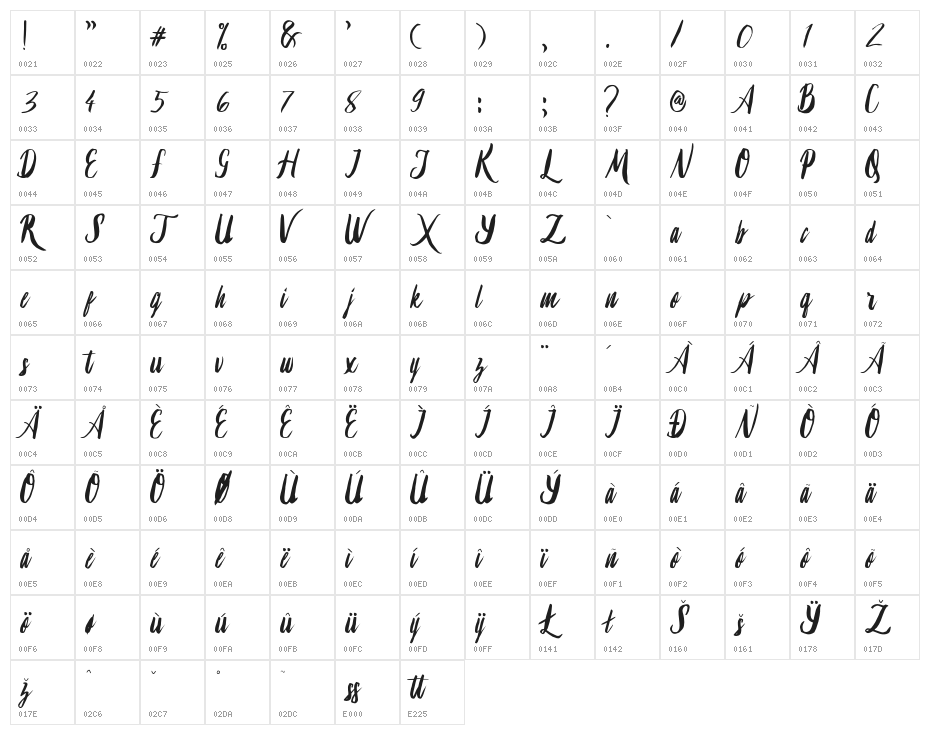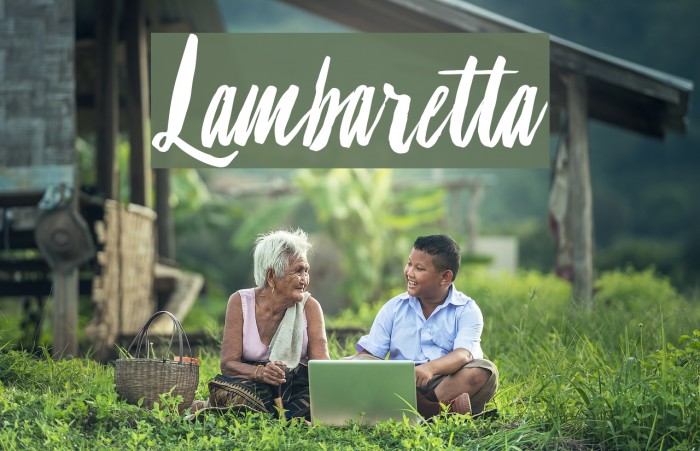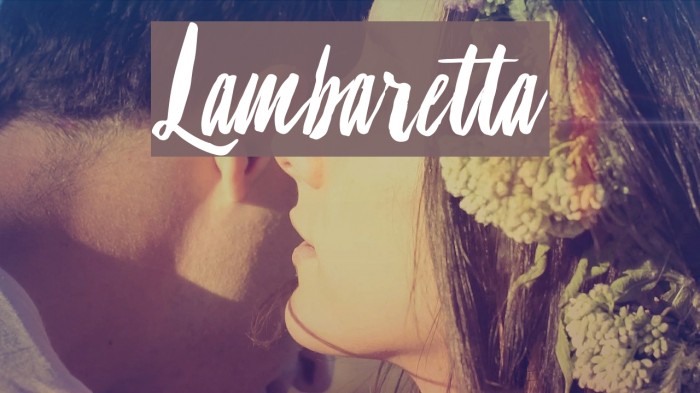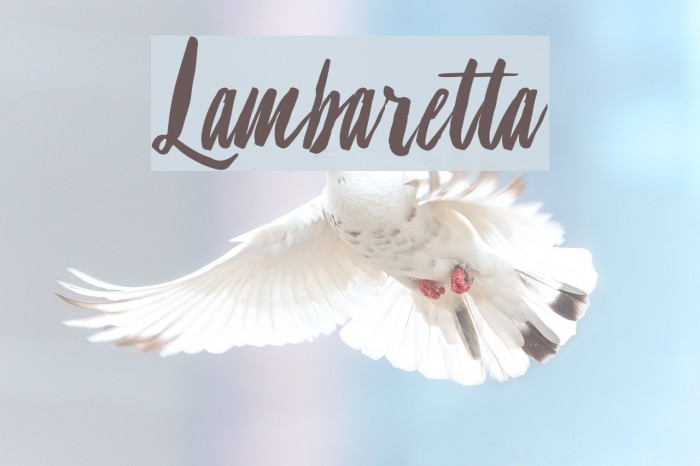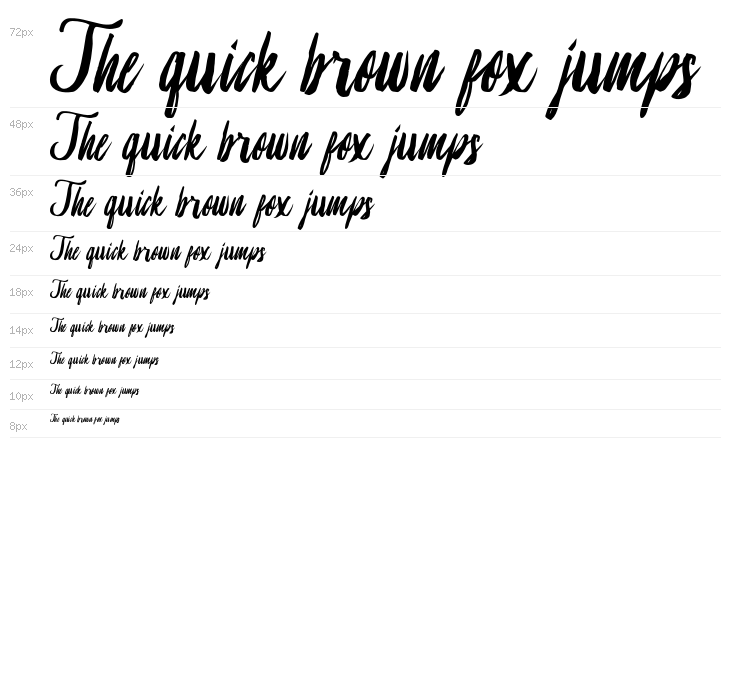
Lambaretta Font
Lambaretta Description
This font exudes a dynamic and expressive style, characterized by its bold, sweeping strokes and fluid, cursive design. The uppercase letters are particularly striking, with exaggerated curves and a sense of movement that suggests a handwritten quality. The lowercase letters maintain this fluidity, offering a harmonious blend of elegance and readability. Numbers and special characters are crafted with the same attention to detail, ensuring consistency across all elements. The overall appearance is both artistic and sophisticated, making it suitable for projects that require a touch of personality and flair.
| Proposed Projects | Ideal for branding, invitations, greeting cards, and artistic projects that require a personal touch. |